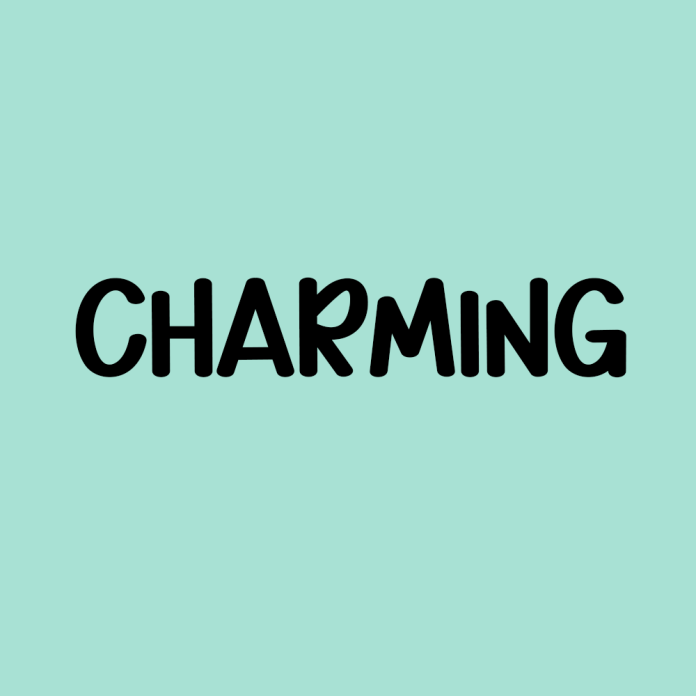
Charming Font is a lovely and sweet handwritten script font. This gentle font will look gorgeous on a variety of design ideas. It will add a joyful and romantic touch to each of your projects!